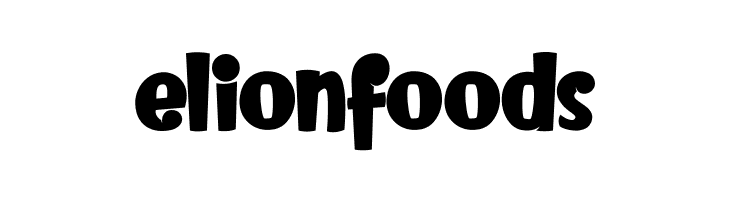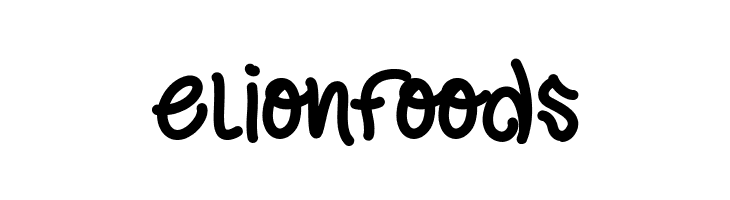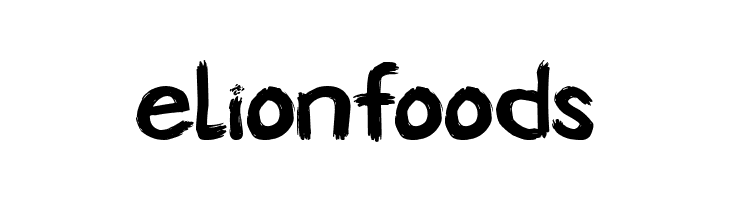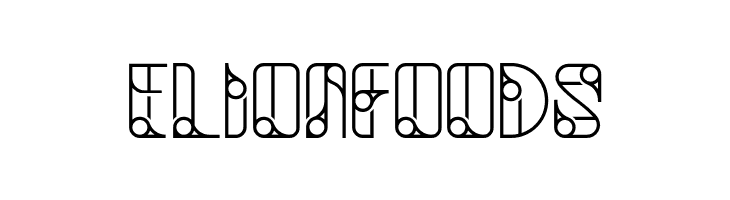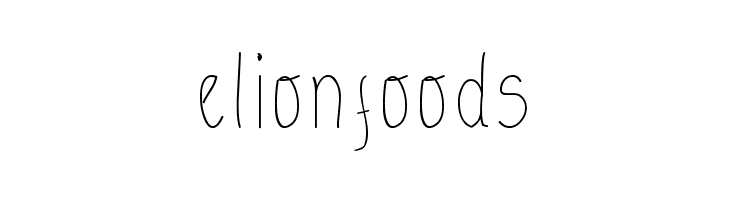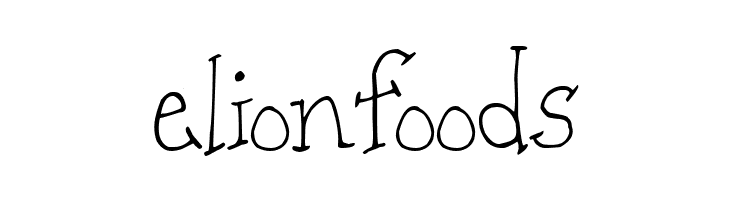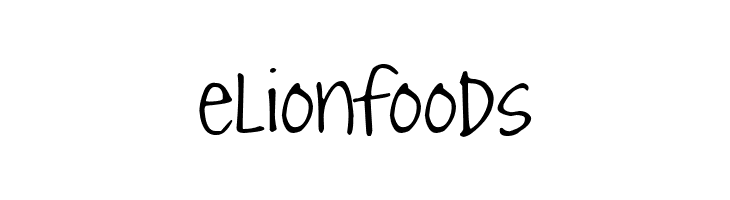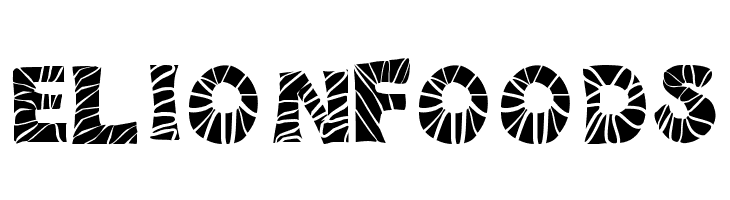
• kaus Tripa
A playful, handwritten font with thin, elongated strokes and a whimsical style.
• Kavri
A geometric and artistic font with circular accents and modern design.
• KB3ZebraPatch
A bold, zebra-patterned font perfect for creative and adventurous designs.
• kcirF esreveR
A mirrored, hand-drawn font with elongated characters and varying stroke thickness.
• Kebo demo
A playful, bold handwritten font with smooth curves and a whimsical style.
• Kemocheng
A bold, brush-stroke font with a raw, artistic feel.
• Kero kero
A playful, bold font with rounded edges and a whimsical style.
• KG Joyful Juliana
A playful, hand-drawn font with a whimsical and joyful style.
• KG Patient Paige
A playful handwritten font with irregular strokes and a whimsical style.
• Khalasti
A bold serif font with high contrast and elegant serifs.